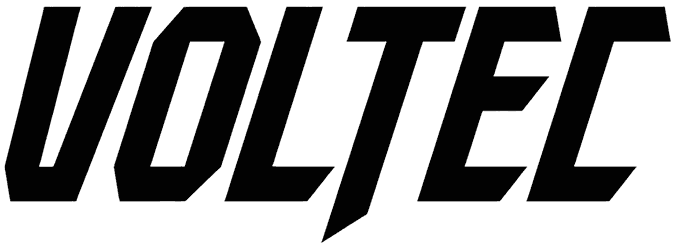
Voltec Font
Voltec is a font that can remove limitations and obscure your designs with an unknown mystery. The design of this futuristic font breaks all stereotypes and can create a science-fiction style in your writing. This bold a…
Voltec is a font that can remove limitations and obscure your designs with an unknown mystery. The design of this futuristic font breaks all stereotypes and can create a science-fiction style in your writing. This bold and dazzling nature makes Voltec a good choice for headlines, promotional content, book and movie covers, and computer games.
Voltec is a sharp, angular, futuristic font in a modern style.